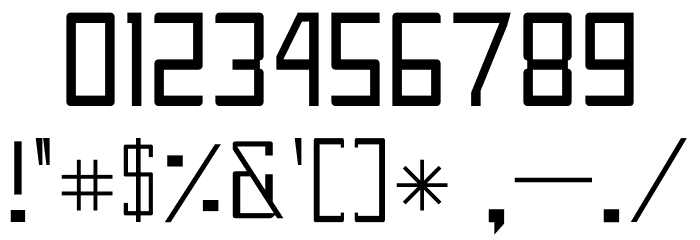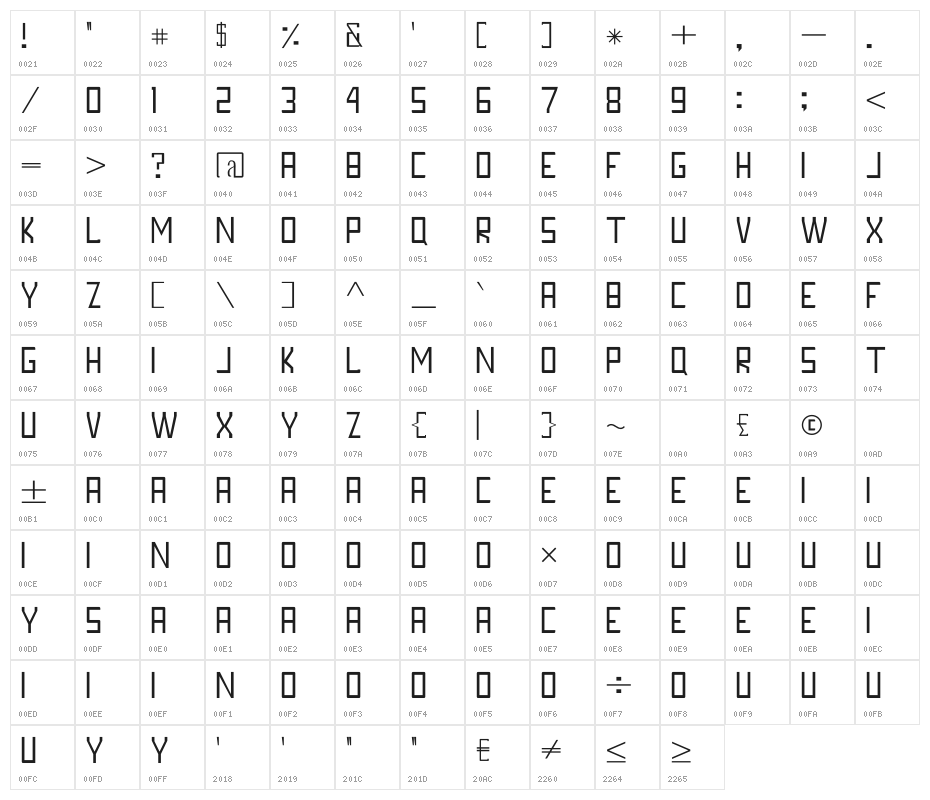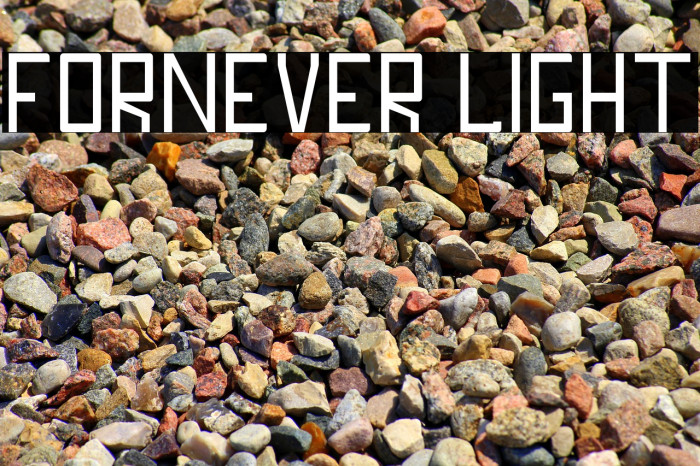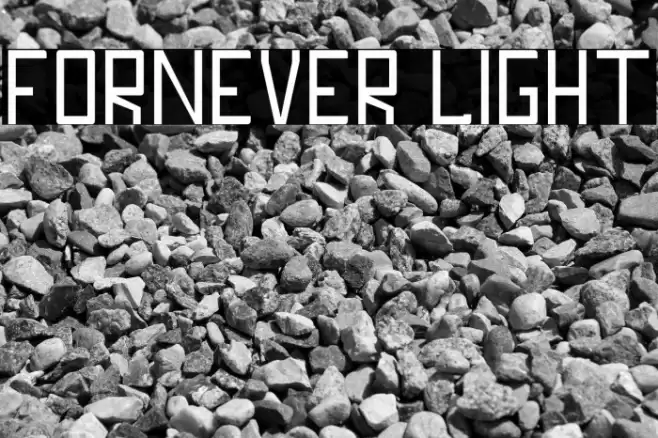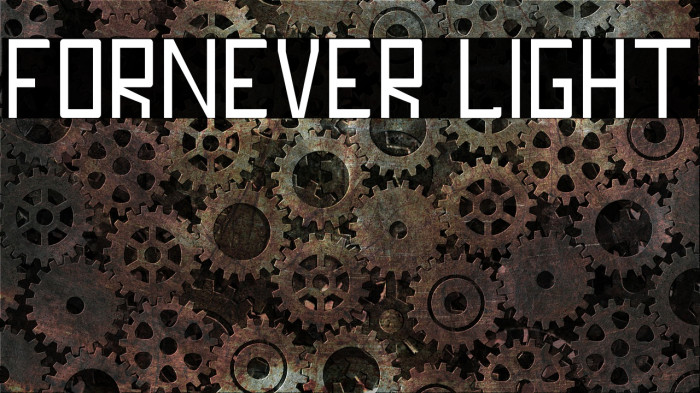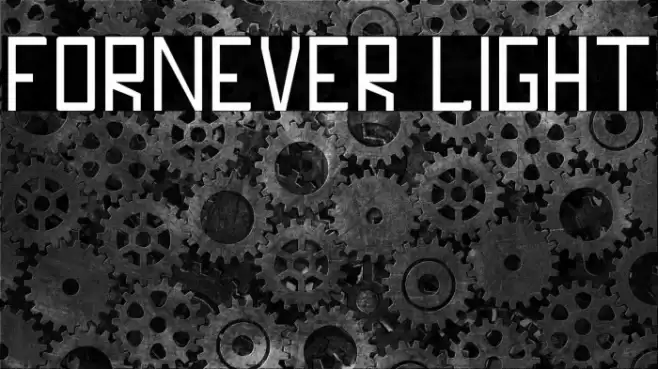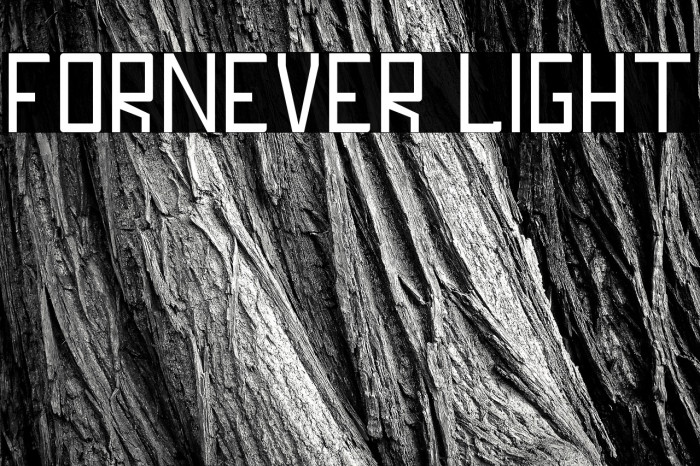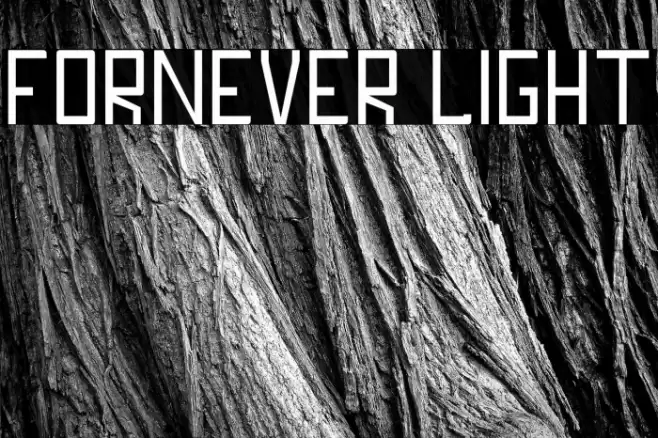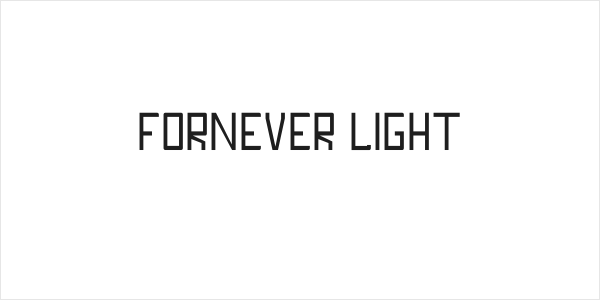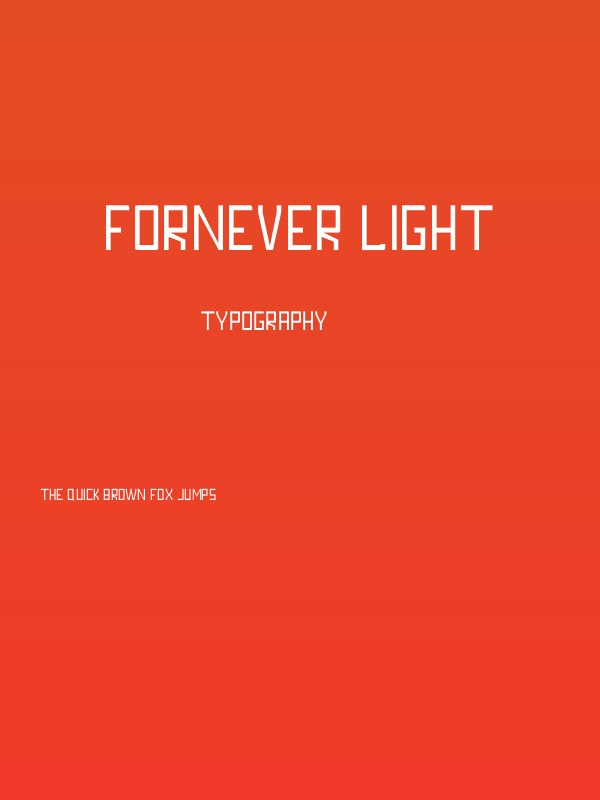
FORNEVER Light Font
FORNEVER Light Description
This font features a geometric and modern design with clean, straight lines and sharp angles. The characters are constructed with a consistent stroke width, giving it a uniform appearance. The uppercase letters are tall and narrow, while the lowercase letters maintain a similar structure, enhancing readability. The numerals are distinct and align well with the overall style, making them suitable for digital displays. Special characters are designed with the same geometric precision, ensuring a cohesive look across all symbols.
| Use Case | Headlines, Digital displays, Branding |
| Proposed Projects | Ideal for digital interfaces, tech branding, futuristic designs, and modern advertising. |